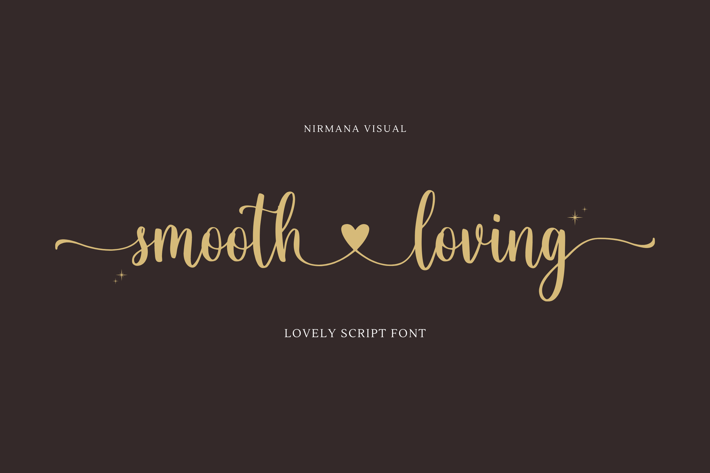
Smooth Loving - Wedding Font
Smooth Loving is a modern calligraphy font,
It has lowercase heart connecting heart, beginning and ending swashes.
It is perfect for branding,logo, wedding invites, every other design which needs a handwritten romantic touch.
features :
-lowercase beginning and ending swashes.
-lowercase connecting heart